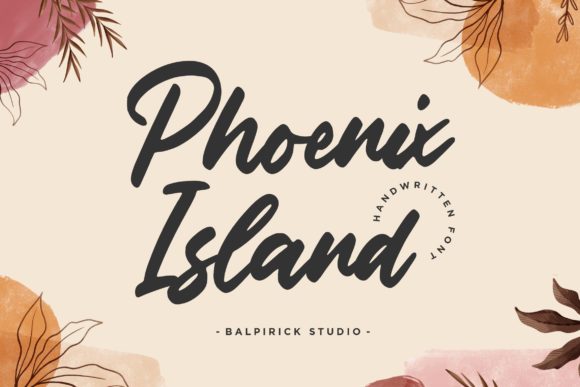
Welcome to the realm of Phoenix Island Font, where elegance and beauty intertwine to create an enchanting world of typography. This script font, crafted by the renowned Balpirick, is a masterpiece designed to leave an indelible mark on your creative projects. Phoenix Island Font is not just a collection of characters; it's an expression of artistry, a testament to the power of handwritten excellence.
Immerse yourself in the world of Phoenix Island Font and discover a symphony of exquisite curves, delicate strokes, and graceful flourishes that dance across the page. Each letter is a testament to the artistry of its creator, showcasing a unique personality that harmonizes seamlessly with the rest. This font is a true chameleon, adapting effortlessly to a wide range of design concepts, from elegant wedding invitations to eye-catching logos that demand attention.
With Phoenix Island Font, you gain the power to transform your words into works of art. Its flowing lines and subtle nuances add a touch of sophistication to any project, effortlessly elevating your designs to new heights. Whether you're a seasoned designer seeking to expand your typographic horizons or a creative enthusiast seeking to make a statement, Phoenix Island Font is your trusted companion.
Unleash your creativity and let Phoenix Island Font guide you on an artistic journey. Its timeless beauty and versatility make it the perfect choice for creating logotypes that stand the test of time, branding that exudes professionalism, and quotes that capture the essence of your message. With Phoenix Island Font, you'll discover a world of endless possibilities, where imagination knows no bounds.
Embrace the beauty of Phoenix Island Font and embark on a creative adventure that will leave your audience captivated. Let your designs soar to new heights, where artistry and functionality intertwine to create a visual masterpiece. Experience the magic of Phoenix Island Font today and unlock the true potential of your creative vision.